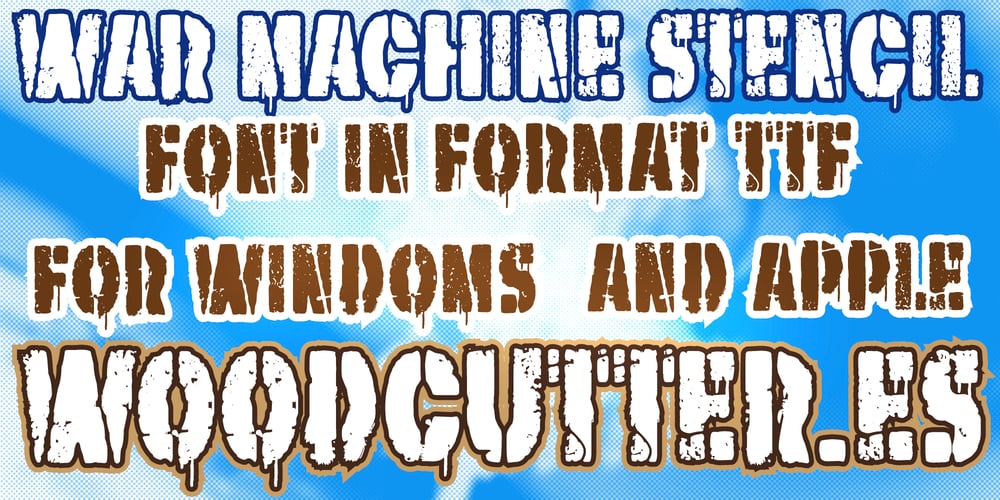
War Machine Stencil
War Machine Stencil font
War Machine Stencil Font Family was designed by Jordi Manero and published by Woodcutter. War Machine Stencil contains 1 styles and family package options. “War Machine Stencil” is an uppercase typeface with a military stencil design, characterized by its rugged and worn-out aesthetic. Each letter appears to have been painted using a stencil under harsh conditions, with fading and dripping paint remnants that create natural imperfections, adding character and authenticity. Accents are included, making it suitable for multilingual text. This font is ideal for designs that aim to convey a sense of toughness, resilience, and a raw edge, perfect for projects related to war themes or industrial concepts.